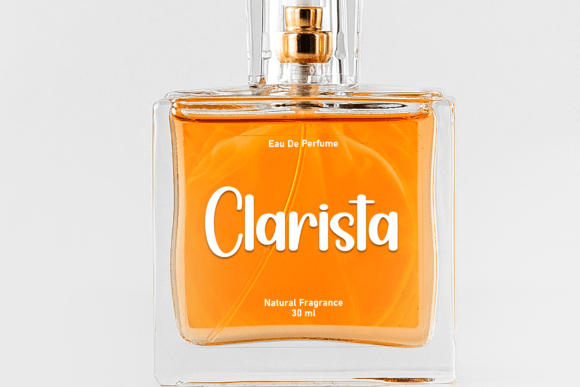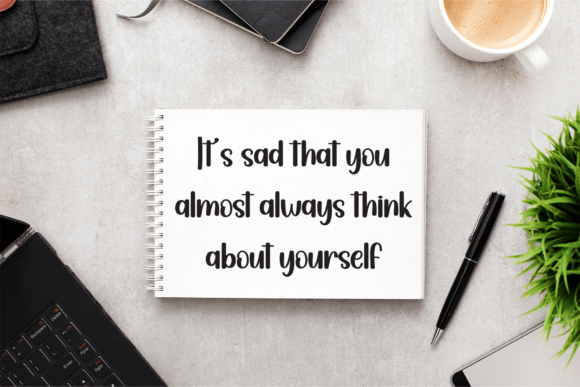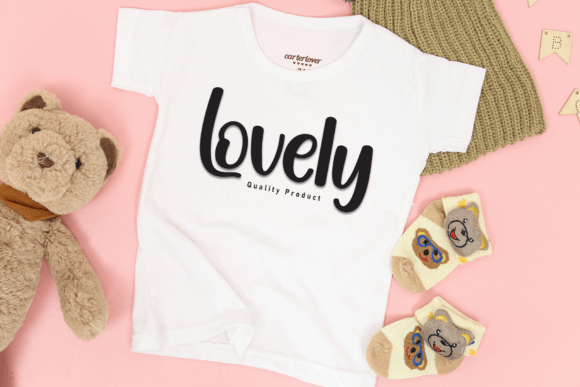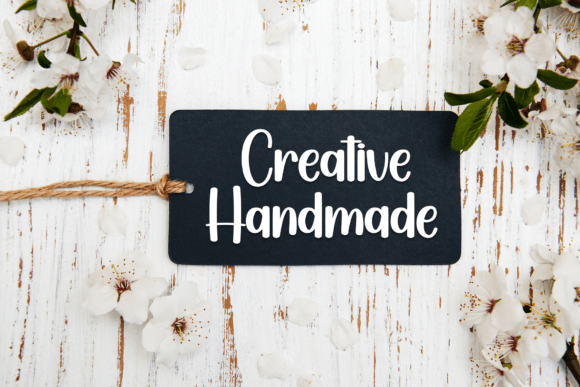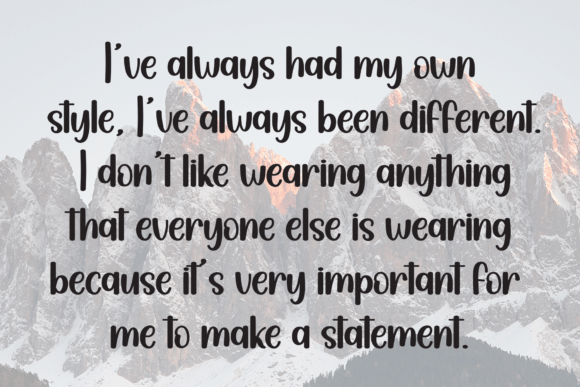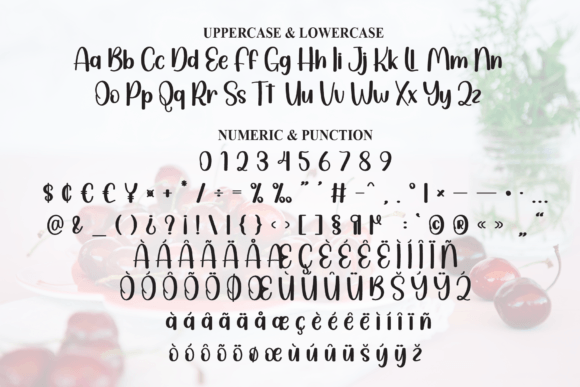
Cherry Rustic Font: Add a Touch of Whimsy to Your Designs
Immerse yourself in the delightful charm of Cherry Rustic Font, a handwritten font that exudes a sweet and friendly allure. This font comes imbued with a playful and enjoyable personality, providing the perfect touch for your wedding invitations, cards, or any design project craving a sprinkle of whimsy.
A Font that Speaks to the Heart
Cherry Rustic Font is more than just a font – it’s an experience. Its carefully crafted letters and playful curves evoke a sense of nostalgia and warmth, making it perfect for designs that require a personal touch. Whether you’re a designer, crafter, or DIY enthusiast, this font is sure to capture your heart and inspire your creativity.
Wedding invitations, save-the-date cards, and other celebratory designs require a special touch. Cherry Rustic Font provides a unique and charming way to express your love and joy. Its whimsical and romantic feel makes it perfect for:
- Wedding invitations and save-the-date cards
- Anniversary cards and gifts
- Birthday party invitations and decorations
- Holiday cards and gift tags
Add a Sprinkle of Whimsy to Your Designs
Cherry Rustic Font is not just limited to wedding invitations and cards. Its playful and friendly personality makes it perfect for a wide range of design projects, including:
- DIY crafts and scrapbooking
- Stationery and journaling
- Signs and banners
Key Features of Cherry Rustic Font
Here are some of the key features that make Cherry Rustic Font so special:
- Handwritten with love and care
- Playful and friendly personality
- Unique and charming letterforms
- Perfect for designs that require a personal touch
- Easy to read and use
Tips for Using Cherry Rustic Font
Here are some tips for using Cherry Rustic Font in your designs:
- Pair it with simple backgrounds to make the font stand out
- Use it in combination with other fonts for a unique look
Cherry Rustic Font is a delightful and charming handwritten font that’s perfect for designers, crafters, and DIY enthusiasts. Its playful and friendly personality makes it ideal for a wide range of design projects, from wedding invitations and cards to DIY crafts and social media graphics. So why not give it a try and add a sprinkle of whimsy to your designs?
Get Creative with Cherry Rustic Font